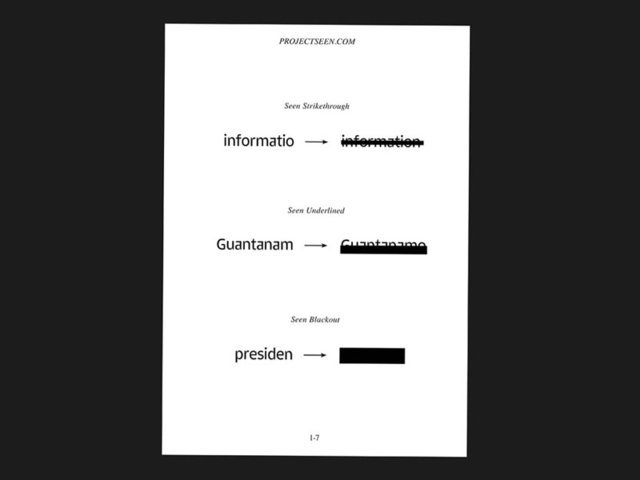
An interesting project by designer Emil Kozol. His font “Seen” self-censors itself by automatically striking through words that are monitored by the Feds. This way, you can quickly visualize as you type the words that could get you monitored by the NSA and other agencies.
We know since Wikileaks and Edward Snowden revelations that our online conversations are heavily monitored. Agencies even publish lists of words that can trigger monitoring, like the Homeland security one. These lists, however, are not heavily publicized and quickly forgotten, so we get a fake sense of being anonymous online. You are not, and this font is a good beginning to make you aware of it.
Some of the words that act as red flags for security agencies are quite obvious, like “Ben Laden” or “Al Quaïda”. Other simple words, like “facility”, will be crossed if you use the “Screen” font, which is kind of worrying. A good test would be to take scan your emails, blog posts, and social media updates, and display it with the self-censoring typeface, you may have some surprises.